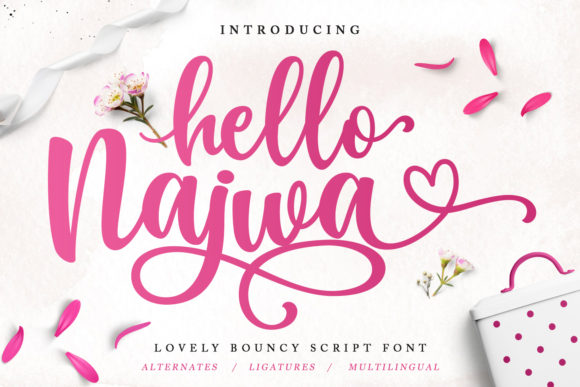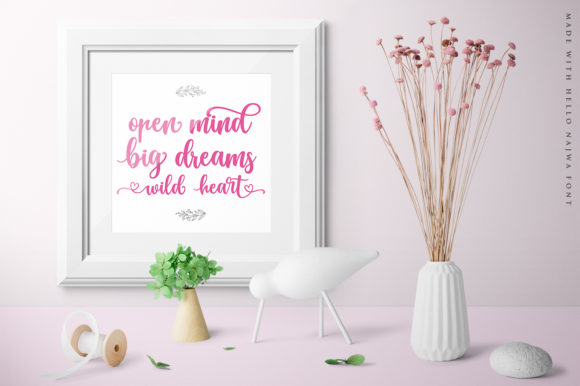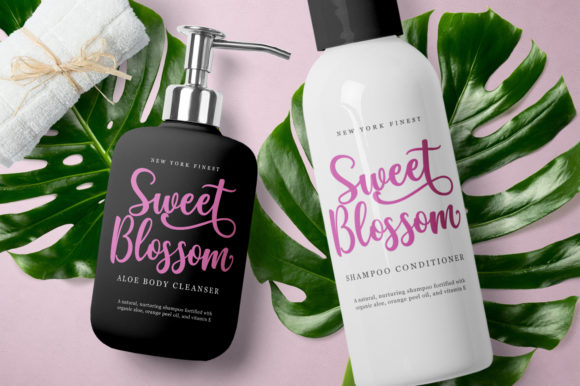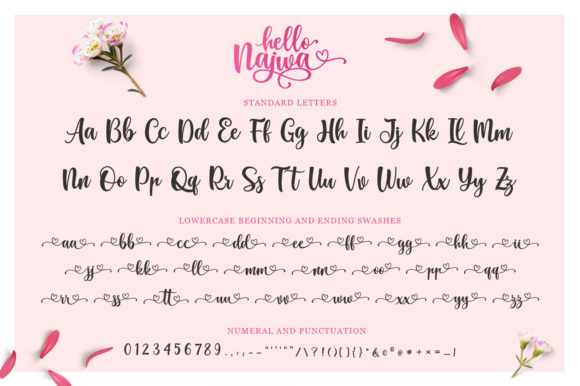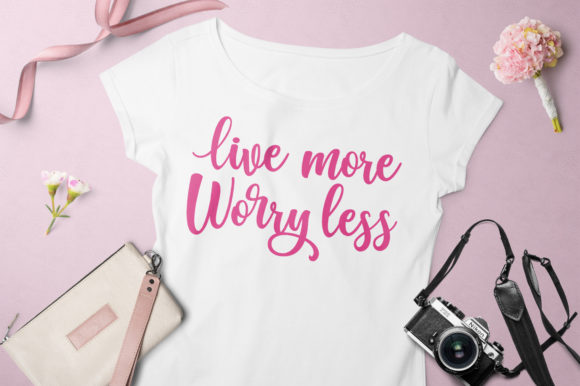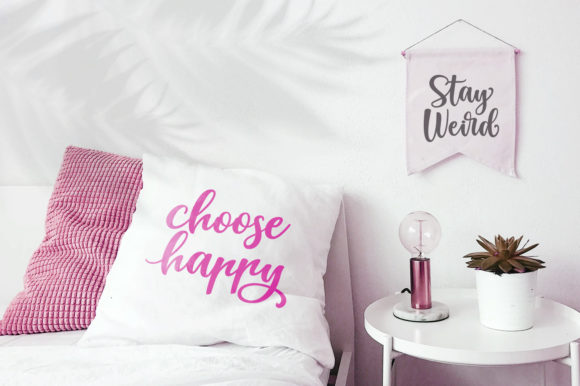
HomeScript FontsHello Najwa Font Script Fonts Hello Najwa Font FacebookXPinterestWhatsApp Hello Najwa Font Poster 2 Hello Najwa Font Poster 3 Hello Najwa Font Poster 4 Hello Najwa Font Poster 5 Hello Najwa Font Poster 6 Hello Najwa Font Poster 7 About Hello Najwa Font With its romantic swashes and cute hearts, Hello Najwa is the ideal crafting font. DOWNLOAD NOW People also explored Suti Heart Monogram Font Fomell Font Mandeylas Childish Font Michelle James Font Belly Button Font The First Night Font Texas Chili Font Family Complete Font Souljah Font 353 0 TagsHello Najwa Font Previous articleNorth Little FontNext articleScarlette Font LEAVE A REPLY Cancel reply Comment: Please enter your comment! Name:* Please enter your name here Email:* You have entered an incorrect email address! Please enter your email address here Website: Save my name, email, and website in this browser for the next time I comment. Personal Use Free Rheiborn Personal Use Free Read more about this font Anjhay Personal Use Free Read more about this font Amrina Personal Use Free Read more about this font Angelika Playful Personal Use Free Read more about this font BLOG Fonts That Capture the Spirit of New York City New York City is more than just a place—it’s an experience, a rhythm, a visual language... How to Cut Any Font on Cricut: Convert a Font to SVG (Free) Exploring Font Trends Free Fonts Risk: Why Free Fonts Can Be Dangerous for Designers